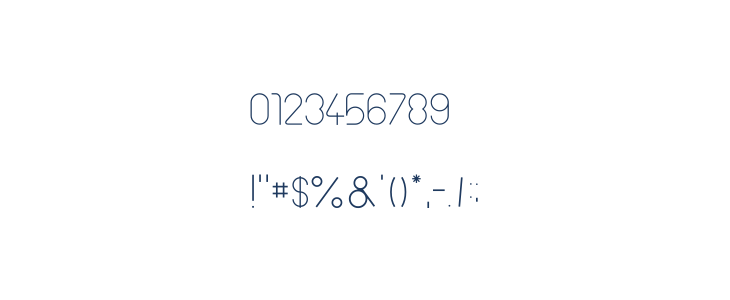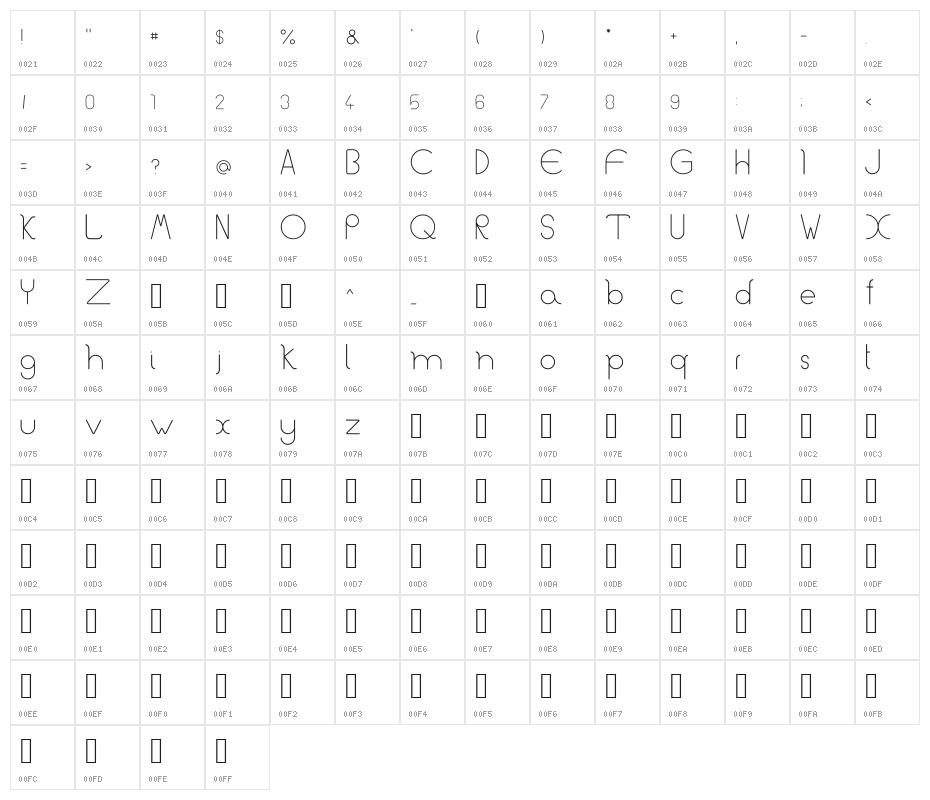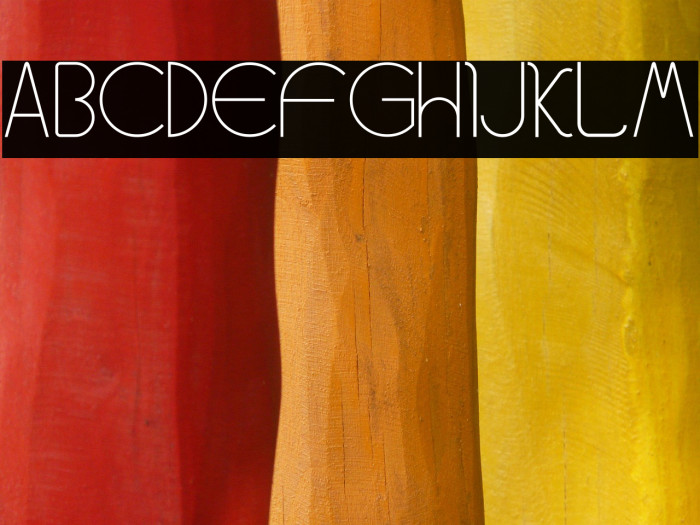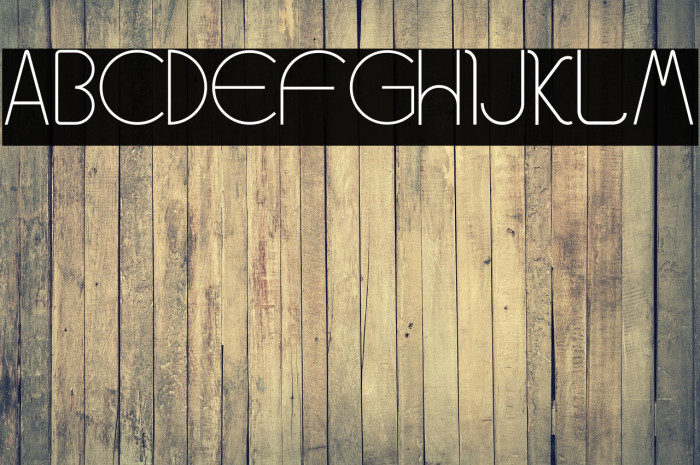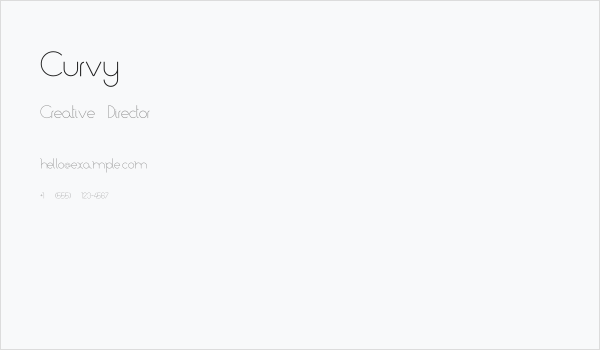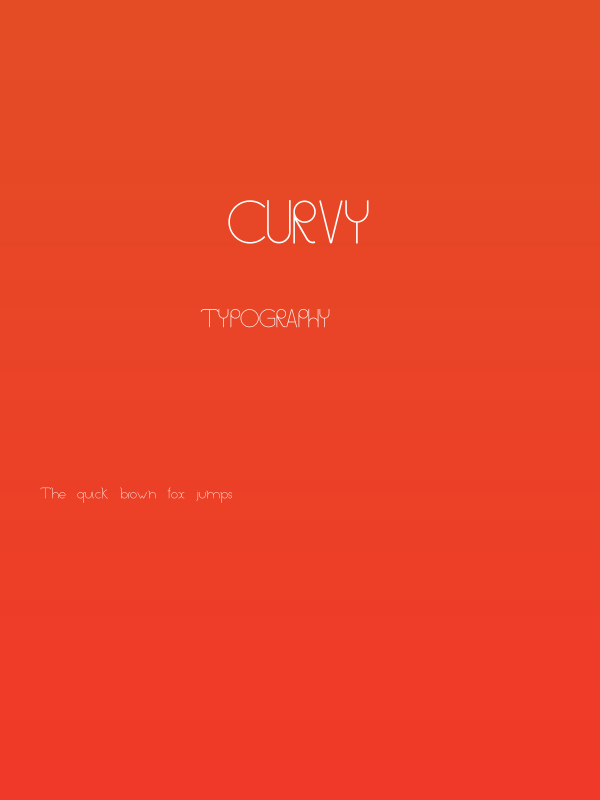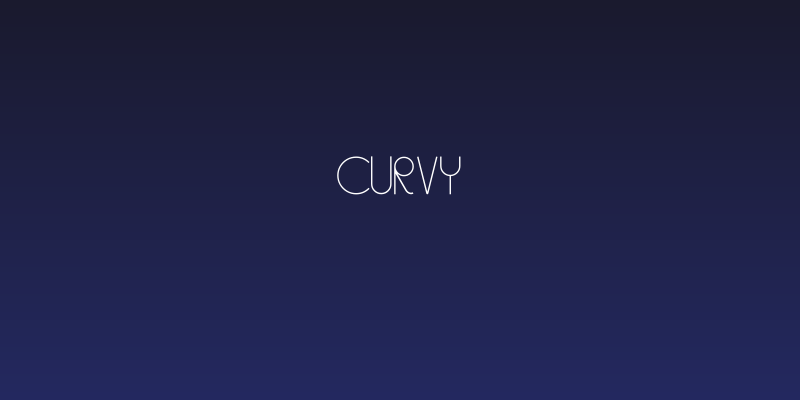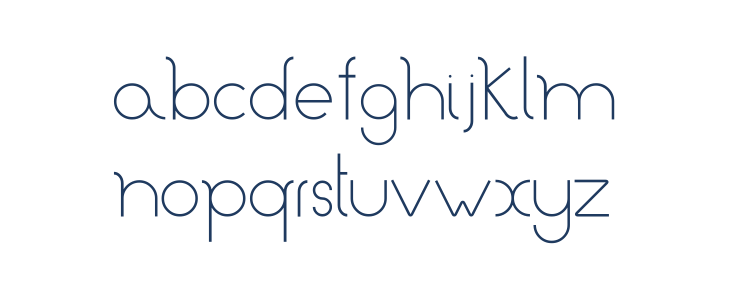
Curvy Font
Curvy Description
This font features a sleek and modern design with a distinct curvilinear style. The characters are composed of smooth, flowing lines that create an elegant and sophisticated appearance. The uppercase letters maintain a consistent height, while the lowercase letters exhibit a harmonious balance with slightly rounded edges. The numerals are clear and legible, complementing the overall aesthetic. Special characters are designed with the same fluidity, ensuring a cohesive look across all elements. This font's unique style makes it suitable for a variety of creative applications.